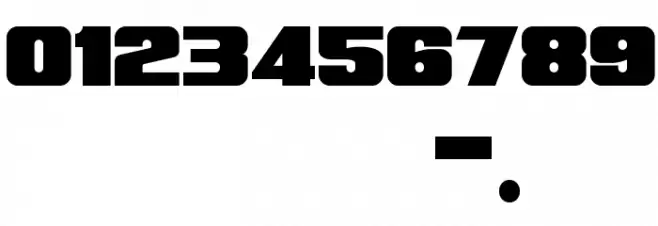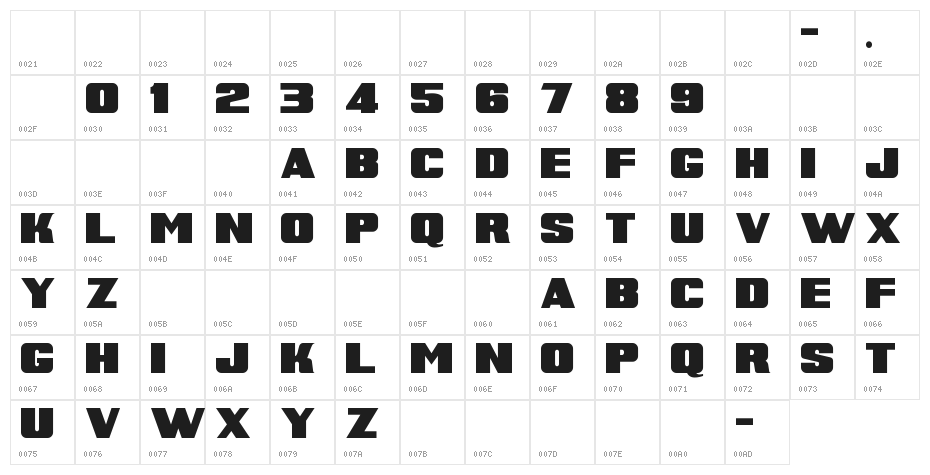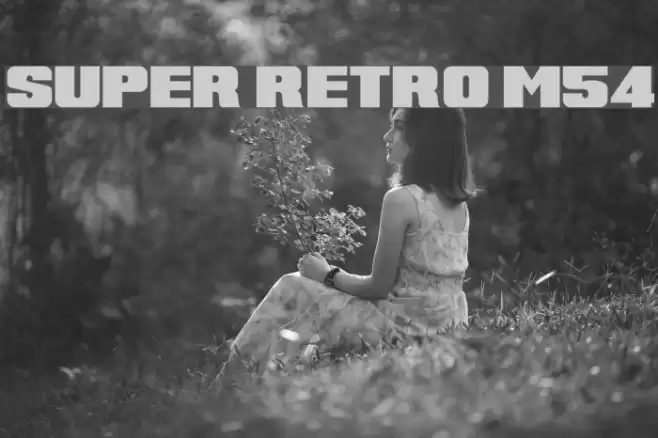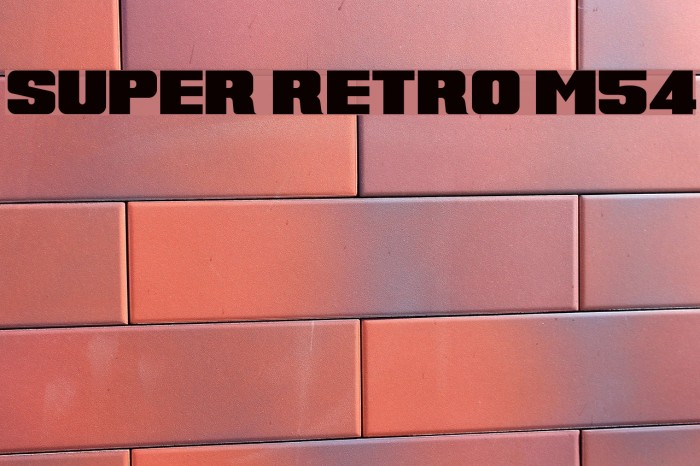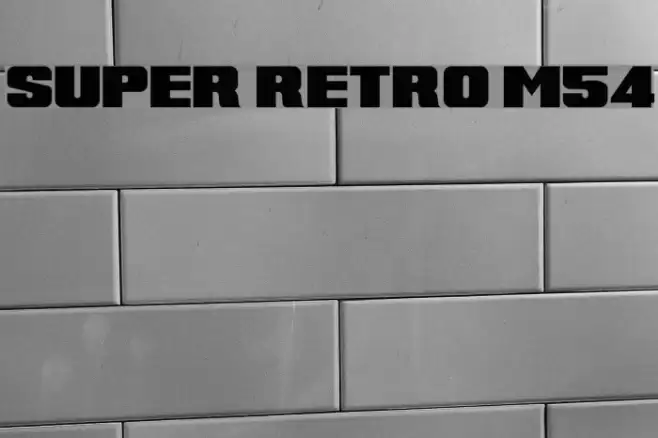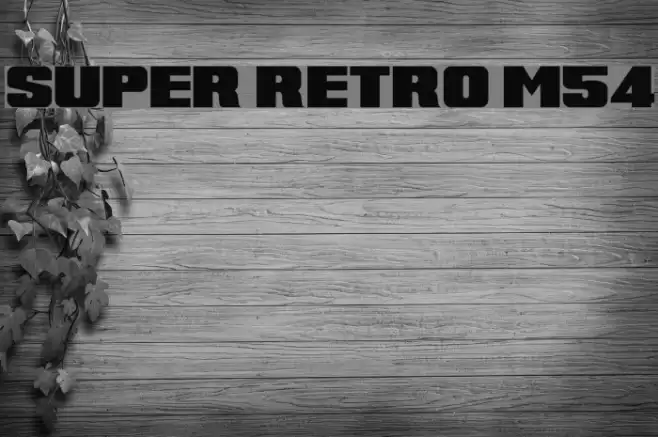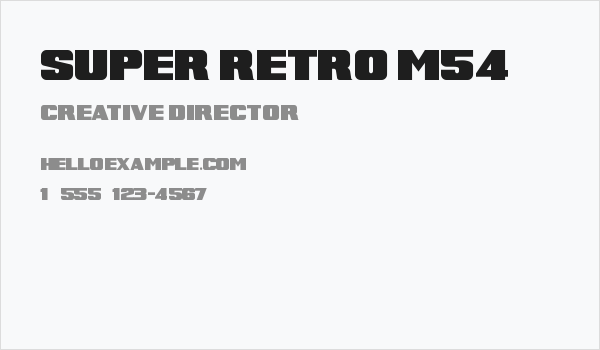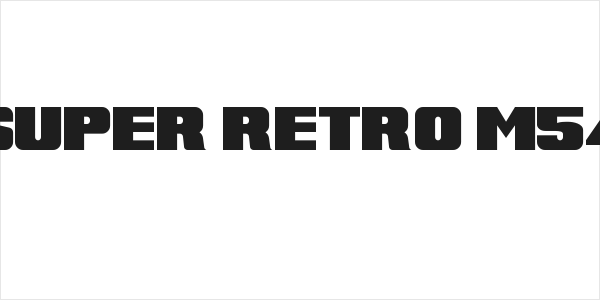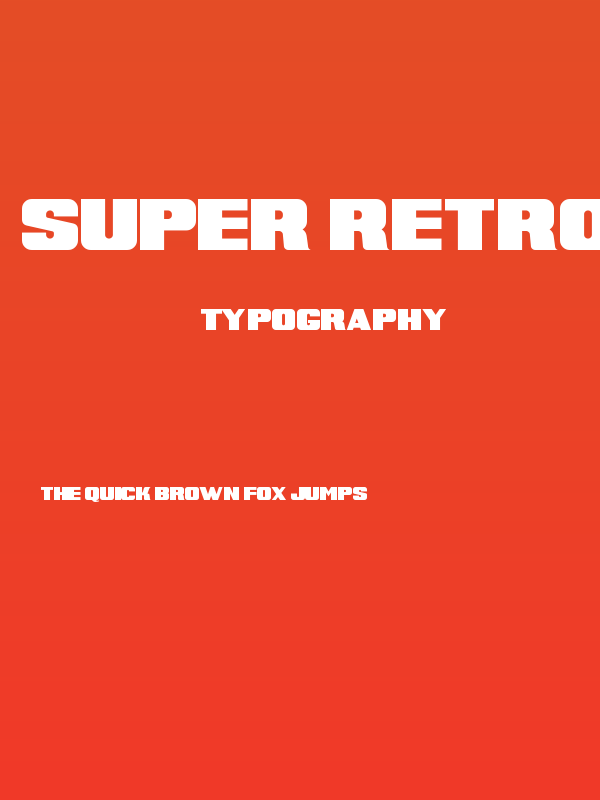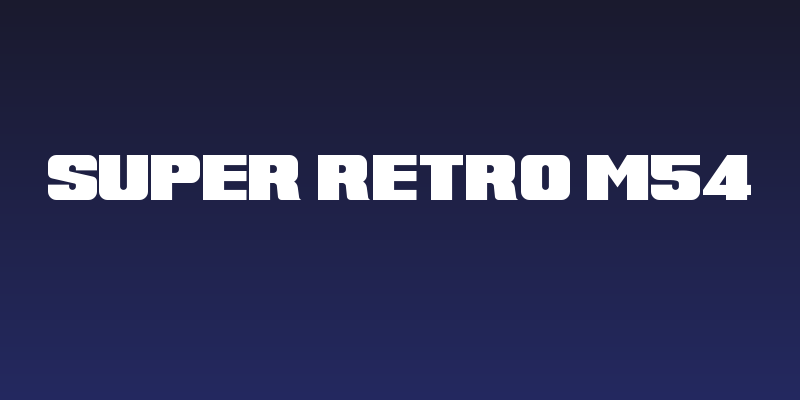
Super Retro M54 Font
Super Retro M54 Description
This bold and impactful font features a strong, geometric design with a distinctly retro aesthetic. The uppercase letters are characterized by their thick, blocky shapes and uniform stroke widths, giving them a powerful presence. The numbers and special characters maintain this bold style, ensuring consistency across all elements. The font's design is reminiscent of vintage signage and posters, making it ideal for projects that require a nostalgic or retro feel. Its solid and sturdy appearance makes it highly legible, even from a distance, which is perfect for headlines and attention-grabbing text.
| Proposed Projects | Perfect for retro-themed posters, vintage branding, signage, and headlines. |